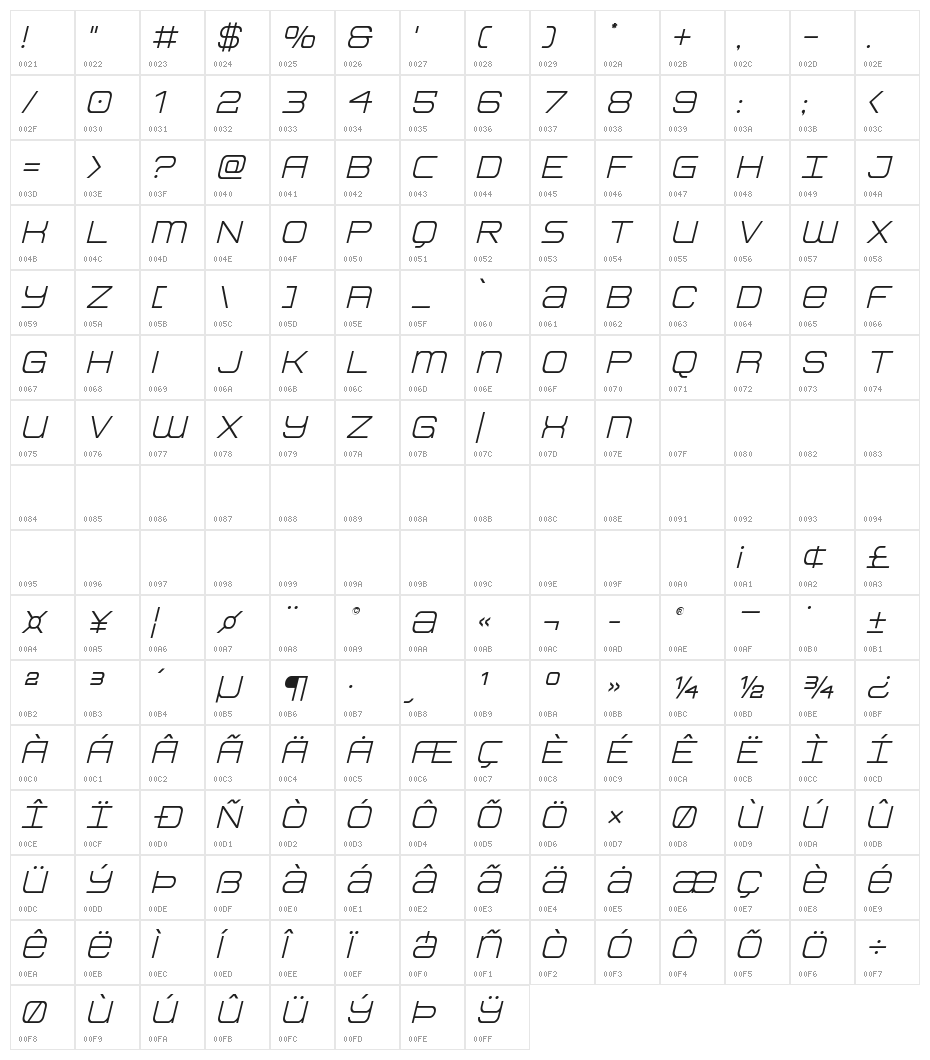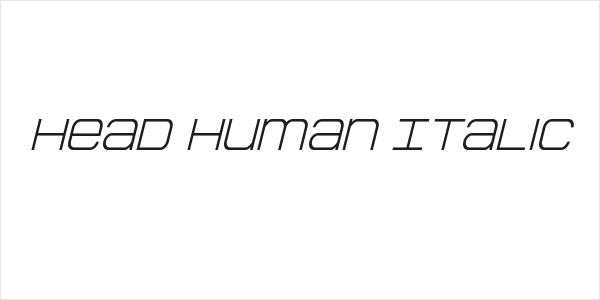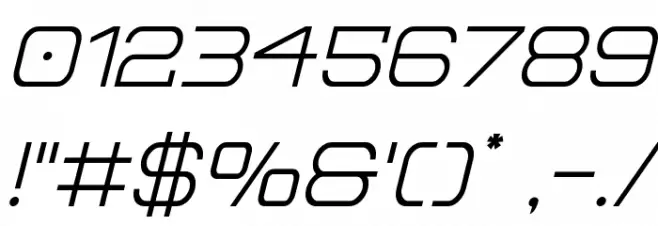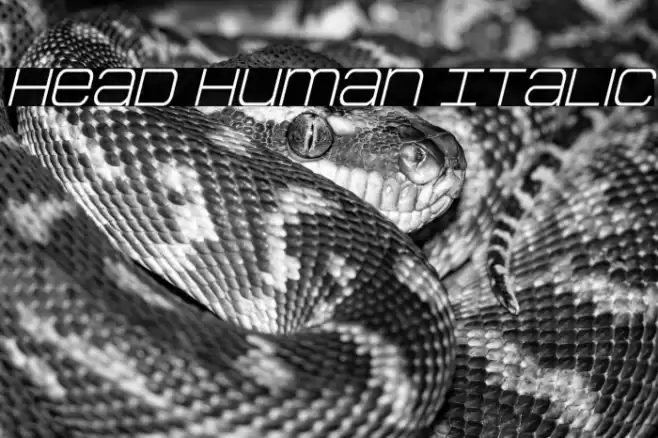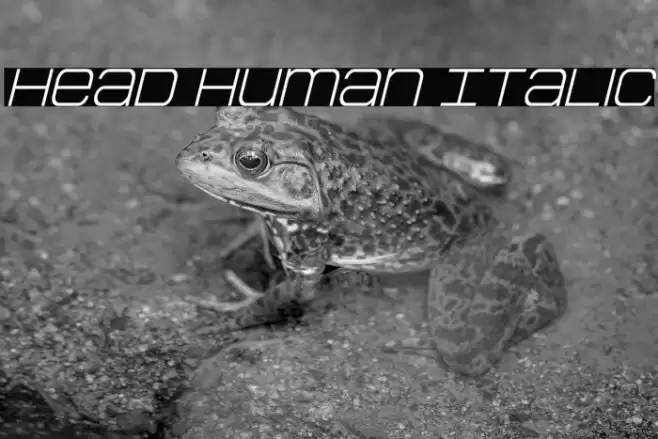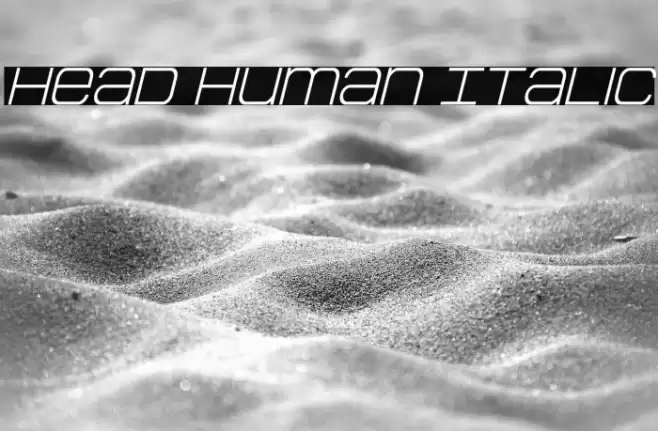
Head Human Italic Font
This font features a sleek, modern design with a distinct italic slant, giving it a dynamic and forward-moving appearance. The characters are constructed with clean, geometric lines and rounded corners, providing a futuristic and technical feel. The uppercase and lowercase letters maintain a consistent style, with a uniform stroke width that enhances readability. The numerals are designed to match the letterforms, ensuring a cohesive look across all text. Special characters are included, each crafted to complement the overall aesthetic. This font's unique style makes it suitable for projects that require a contemporary and innovative touch.
| Proposed Projects | Ideal for technology branding, modern advertising, and innovative product packaging. |